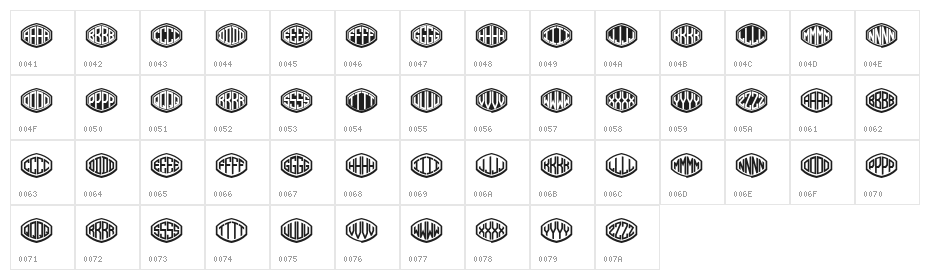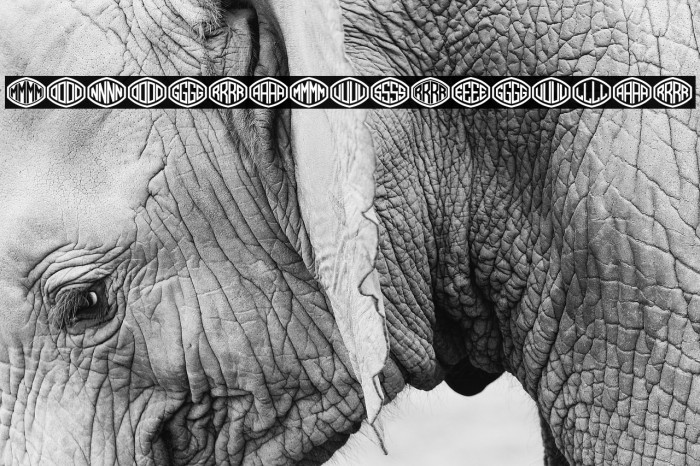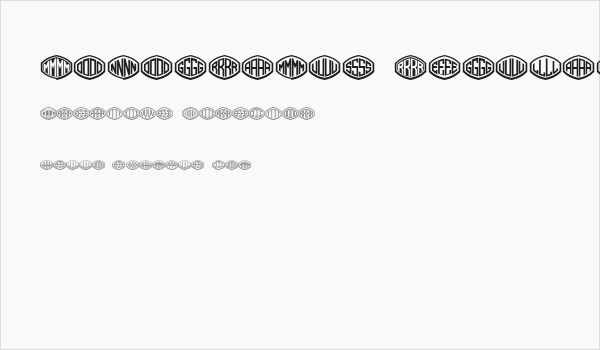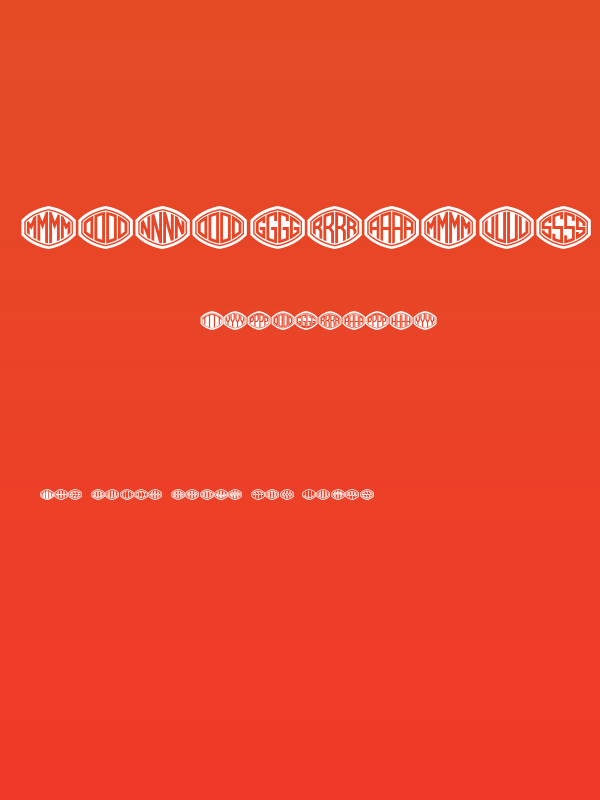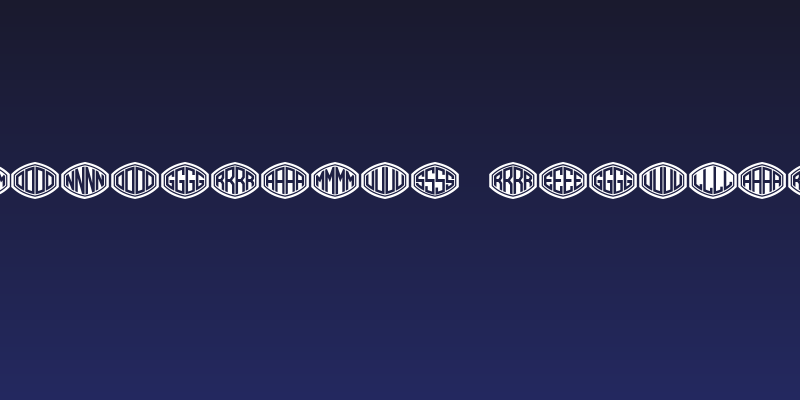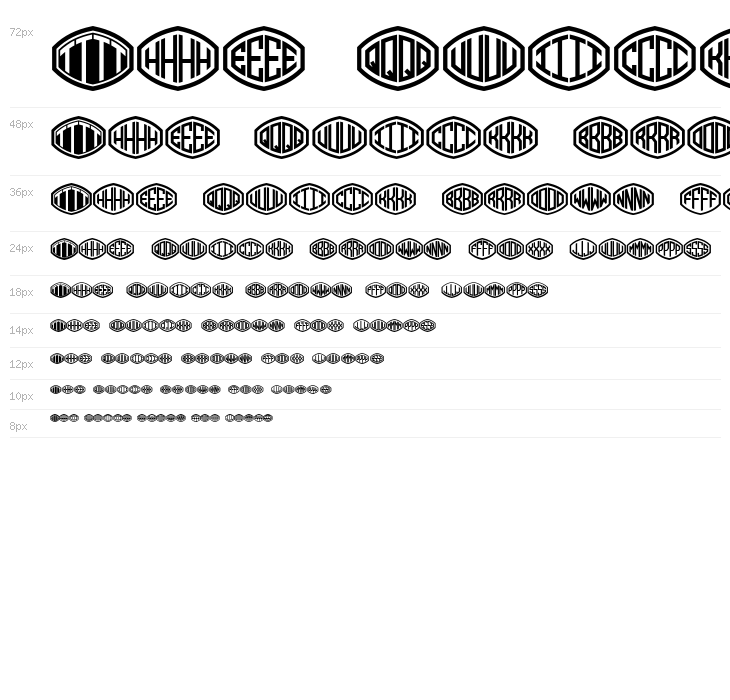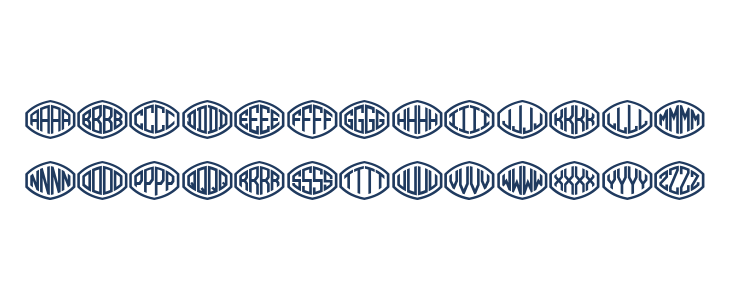
Monogramus Regular Font
Monogramus Regular Description
This font features a unique monogram style where each letter is encapsulated within an oval shape, giving it a distinctive and decorative appearance. The letters are bold and uppercase, with a consistent geometric design that emphasizes symmetry and balance. The font's style is reminiscent of traditional monograms often used in formal settings, providing a sense of elegance and sophistication. The uniformity in the design ensures that each character is easily recognizable while maintaining a cohesive look across the entire alphabet. This font is particularly suitable for projects that require a touch of classic refinement and personalization.
| Use Case | Logos, Headlines, Decorative elements |
| Proposed Projects | Ideal for wedding invitations, personalized stationery, luxury branding, and monogrammed gifts. |